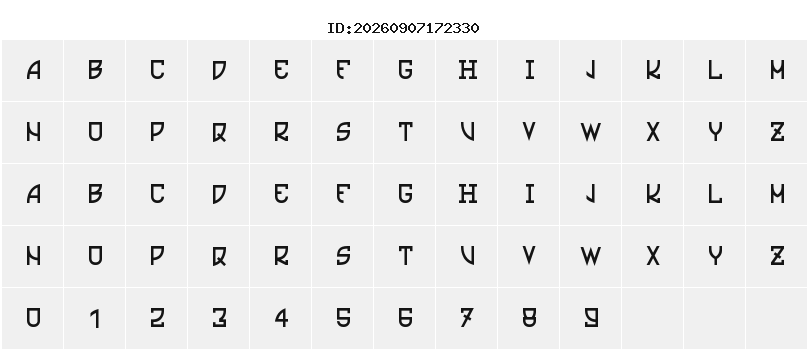
• Font Name: Ultras Liberi
• Description: This font was created by Maccio
About Ultras Liberi.ttf
Ultras Liberi.ttf is a modern, elegant sans-serif font designed for ultimate readability and visual harmony. Perfect for branding, headlines, web design, and print materials.